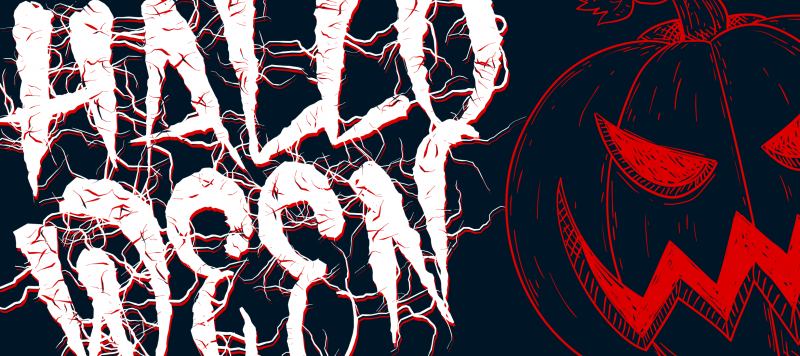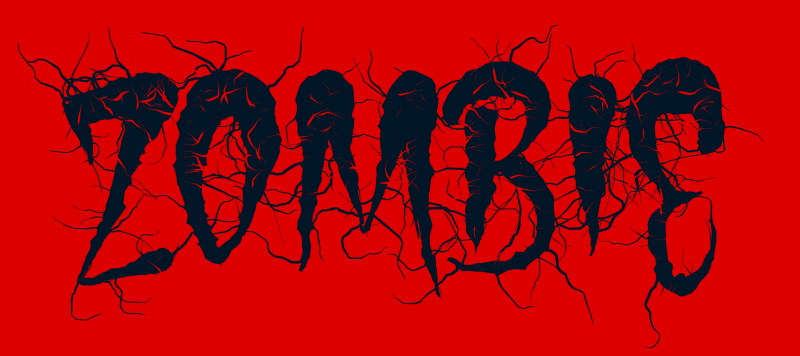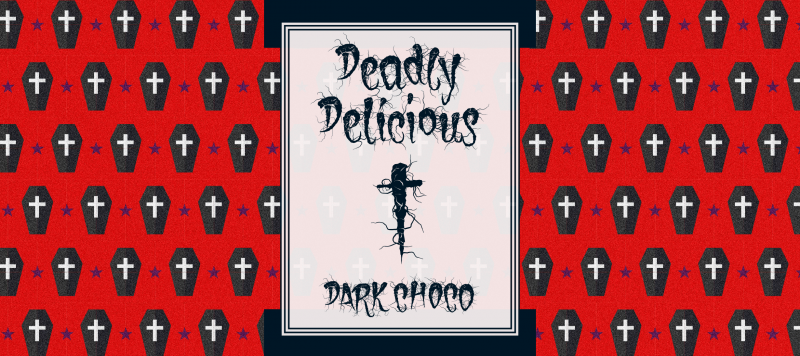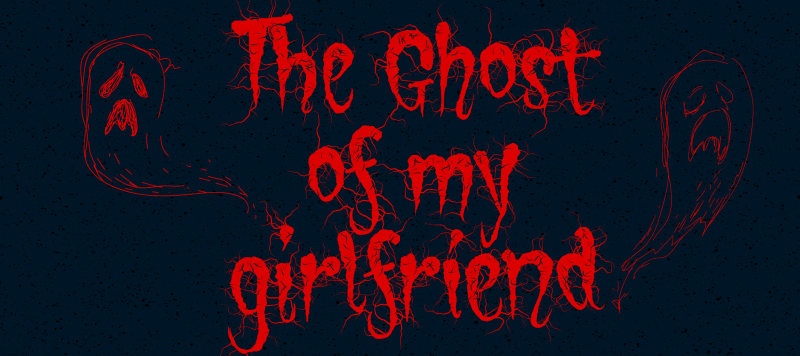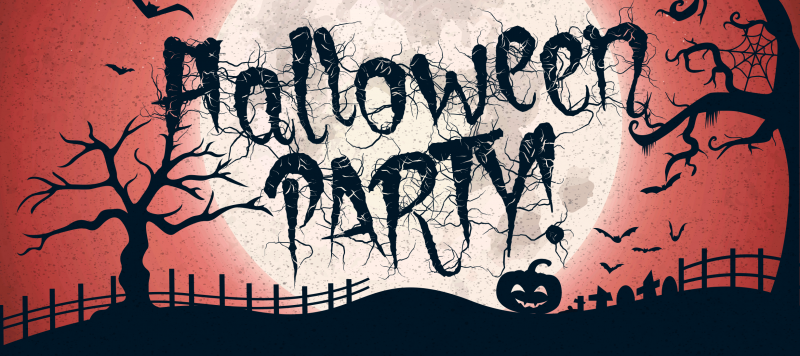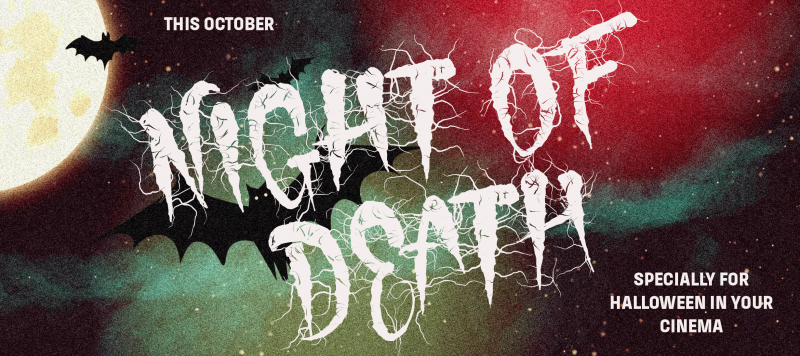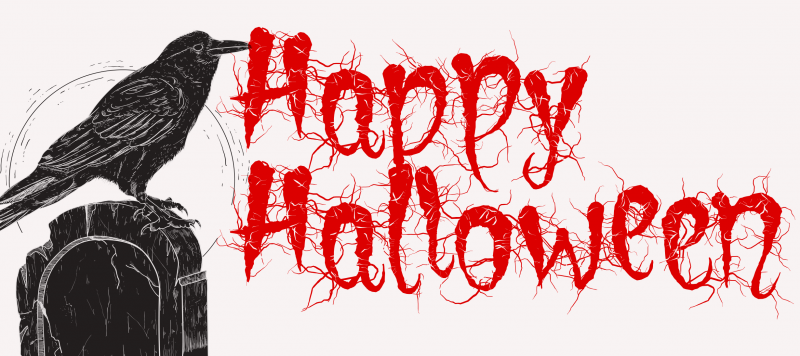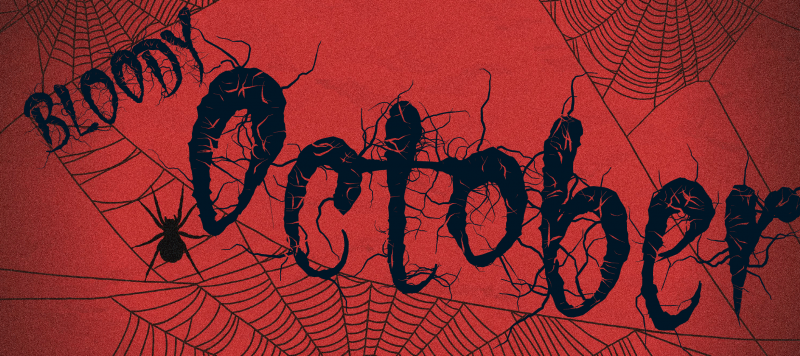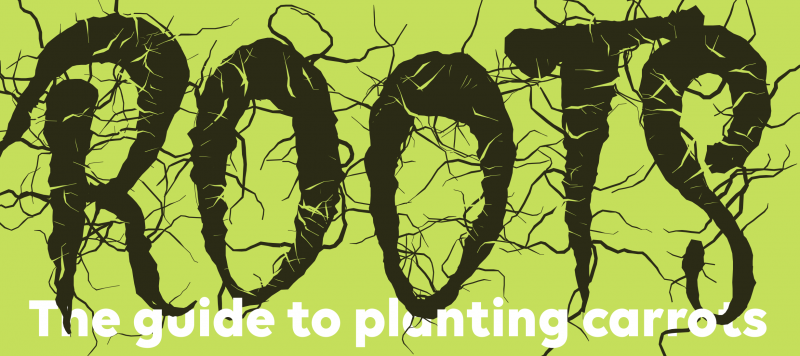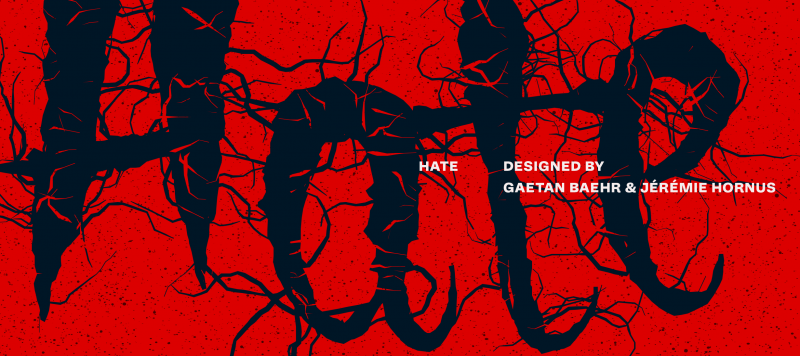
Hate is a display design for Halloween and horror movie posters. While it isn’t an everyday typeface, Hate was developed with the same degree of consideration we’d put into a superfamily. Far from being just a simple font, Hate’s character set contains 510 glyphs. Each letter has three variants available. Combined with the font’s OpenType features, this means that, if you type the same letter three times (e.g., ‘RRR’), you’ll see three different instances. There’s more to Hate than the spooky-looking hairs or roots sprouting out from each glyph. The letters are top-heavy, and this plays out both in terms of weight and width. Hate is somewhat condensed, with narrow counters, a rough drawing style, and sharp thin stroke endings. Letters don’t share exact baselines, x-heights, cap-heights, or ascender and descender settings, and character proportion is a bit caricatural, too.
| Family Name | Hate |
| Designer(s) | Jérémie Hornus |
| Classification | Display |